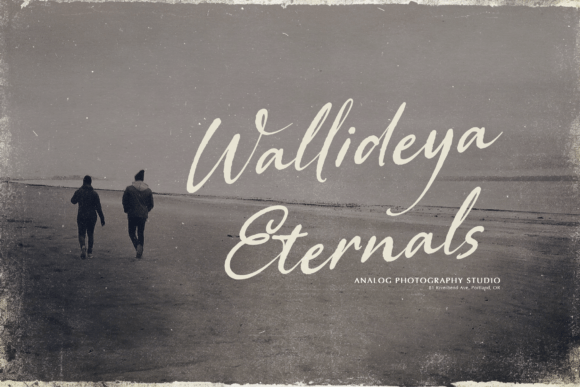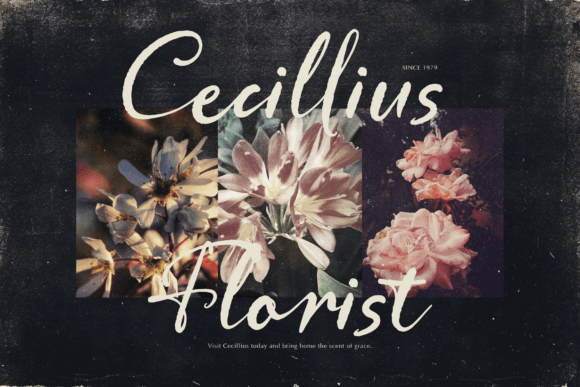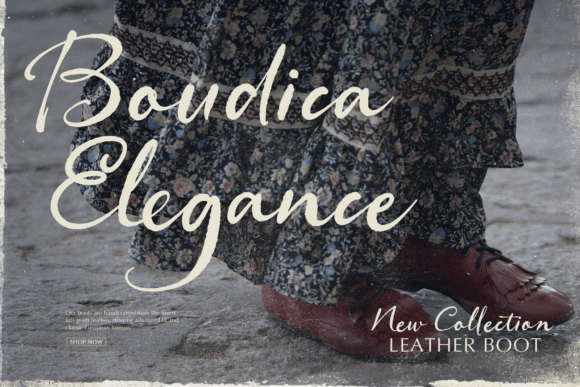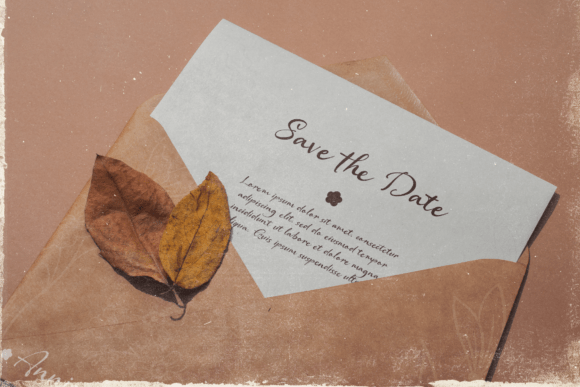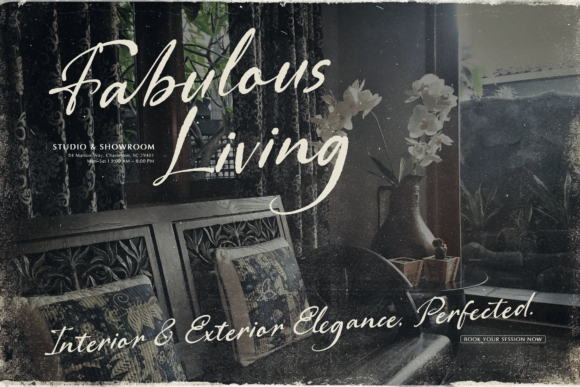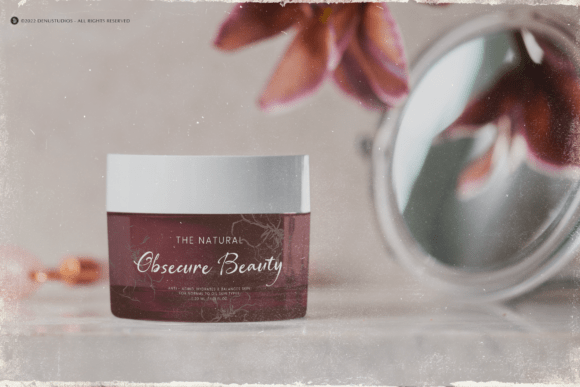
Introduction to Memories Semesta Font
Memories Semesta is a heartfelt script font that captures the elegance of handwritten notes with a natural, flowing charm.
Its gently brushed strokes and emotional appeal make it perfect for wedding designs, personal branding, romantic quotes, and storytelling projects With 320 glyphs including ligatures and alternates, it offers beautiful flexibility for multilingual use and creative flair.